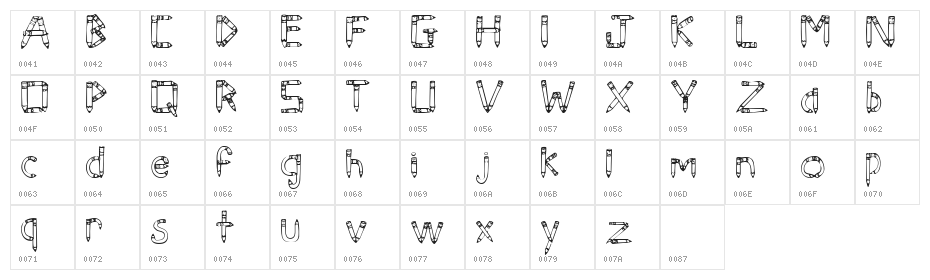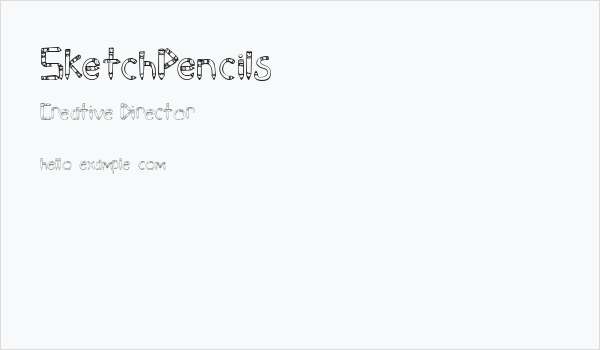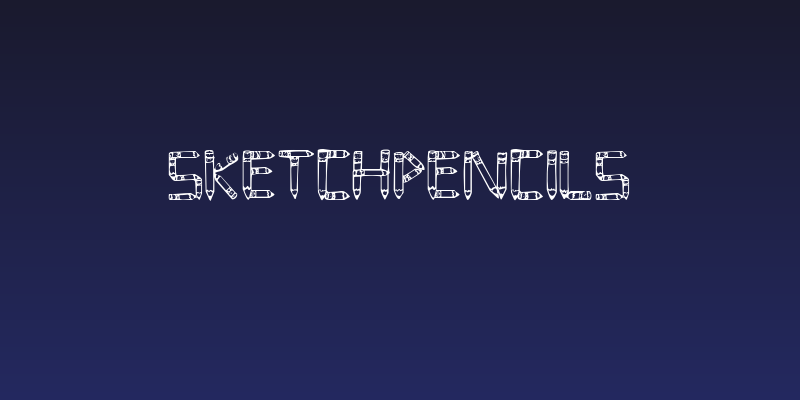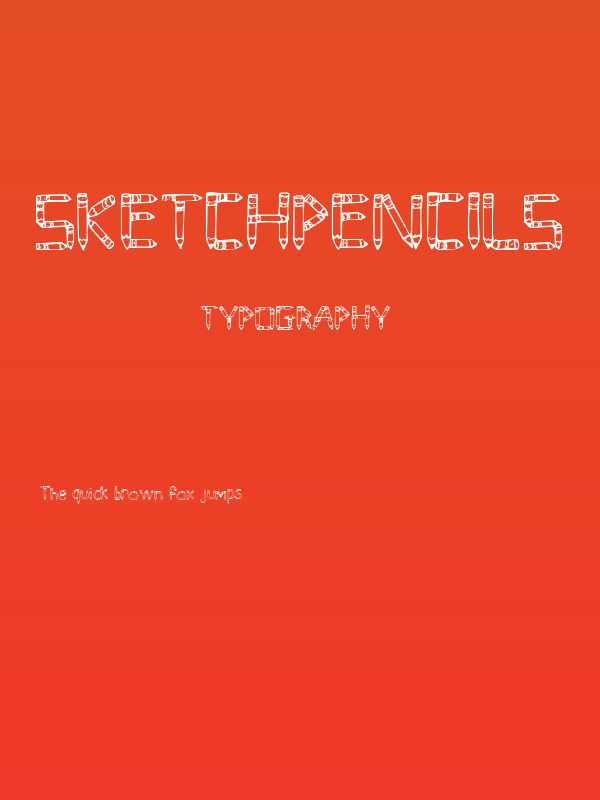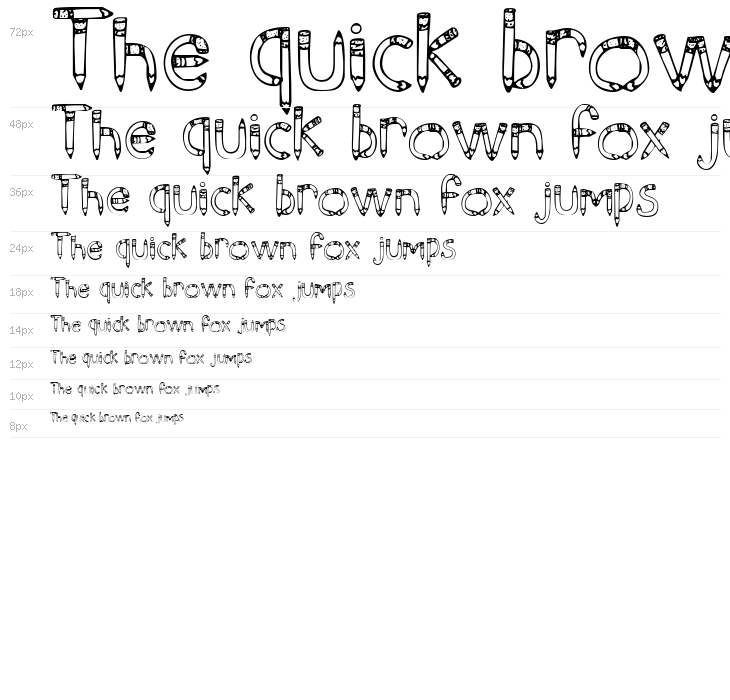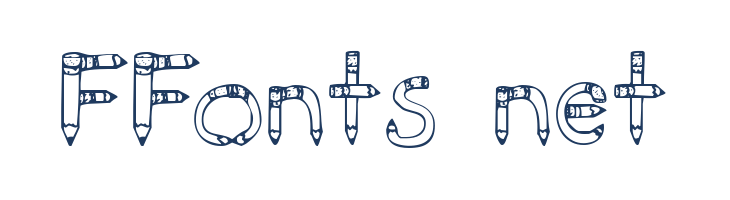
SketchPencils Font
SketchPencils Description
This playful and creative font is designed to resemble sketch pencils, with each character crafted to mimic the appearance of a pencil drawing. The letters are composed of pencil-like strokes, complete with eraser tops and sharpened points, giving a hand-drawn, artistic feel. The font is highly decorative, making it ideal for projects that require a whimsical or artistic touch. Its unique style is perfect for educational materials, children's books, or any design that seeks to evoke creativity and imagination. The characters maintain consistent proportions, ensuring readability while still offering a distinct and engaging visual appeal.
| Proposed Projects | Perfect for children's books, educational materials, art-themed posters, and creative branding. |